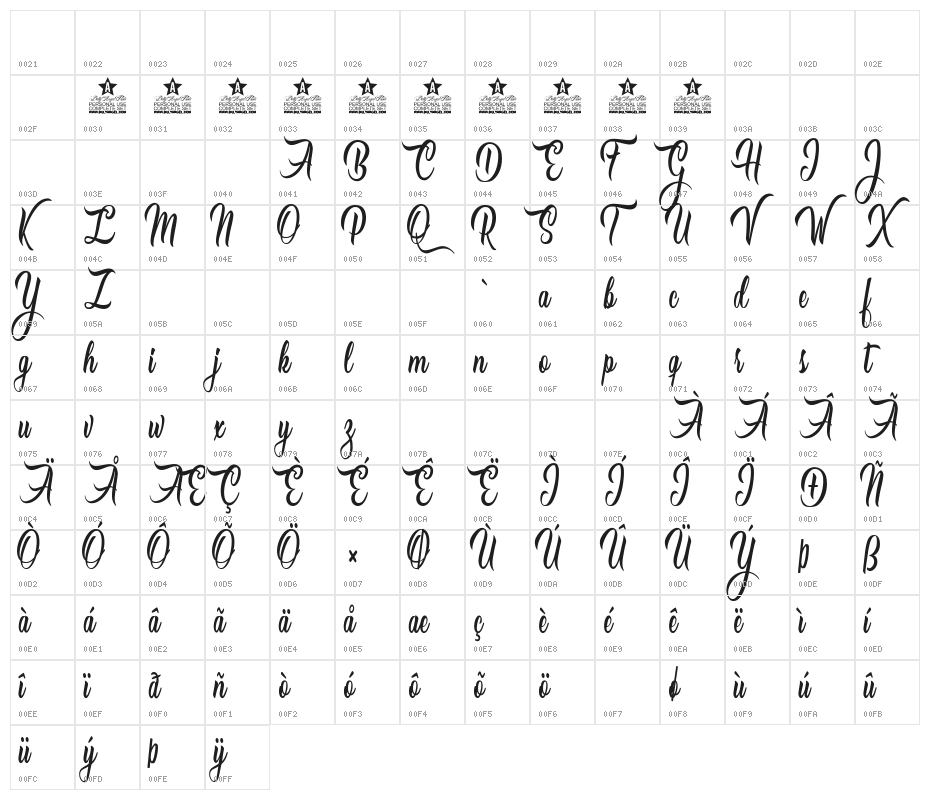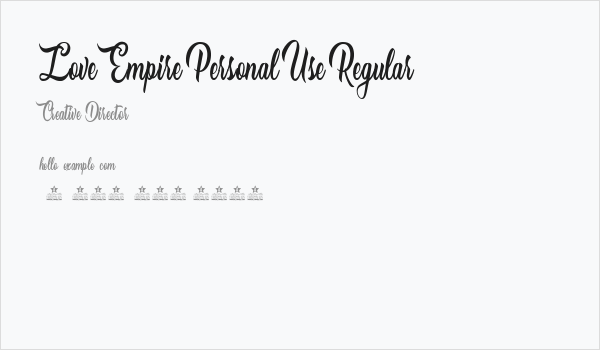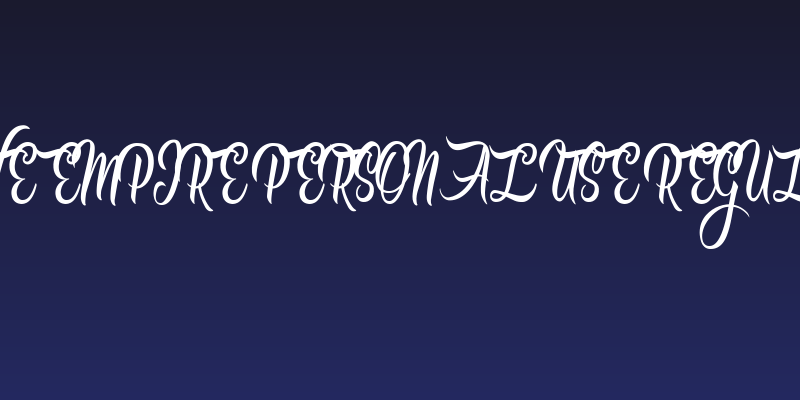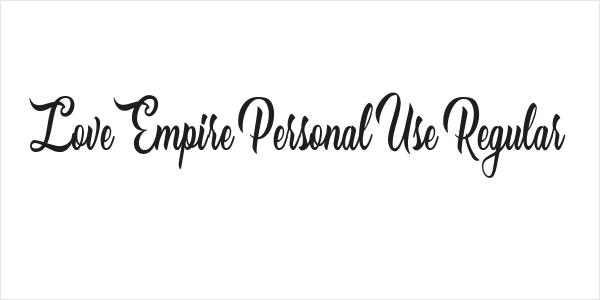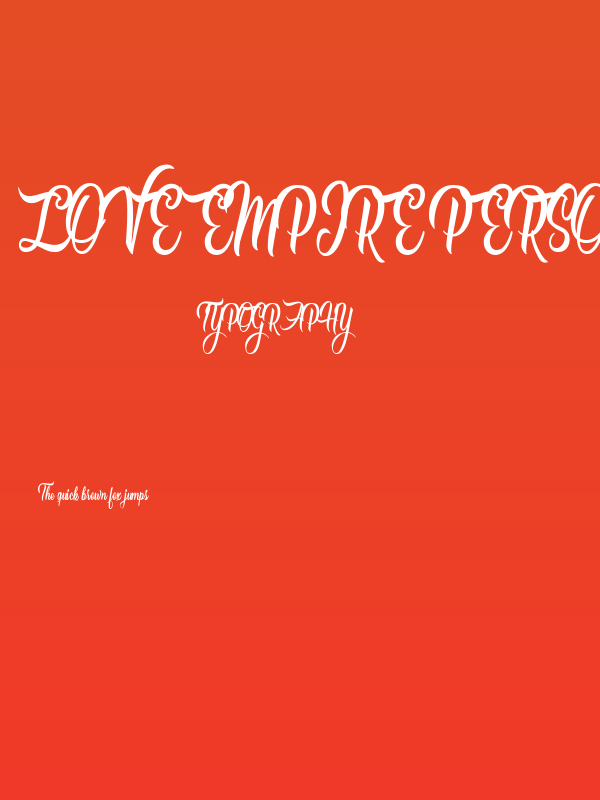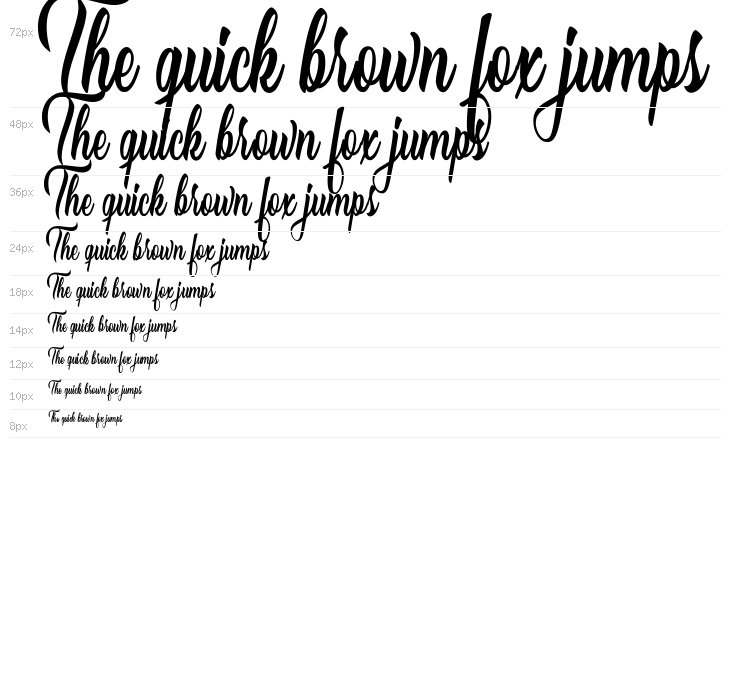
Love Empire Personal Use Regular Font
Love Empire Personal Use Regular Description
This font features an elegant and flowing script style, characterized by its intricate and decorative letterforms. The uppercase letters are particularly ornate, with sweeping curves and flourishes that give a sense of movement and sophistication. The lowercase letters maintain a consistent style, offering a harmonious blend of readability and artistic flair. The font's design is reminiscent of calligraphy, making it suitable for projects that require a touch of elegance and class. The characters are well-spaced, ensuring clarity even with the elaborate design. This font is ideal for creating eye-catching headlines, invitations, and branding materials that require a personal and artistic touch.
| Use Case | Headlines, Invitations, Branding |
| Proposed Projects | Ideal for wedding invitations, branding, logos, and elegant stationery. |